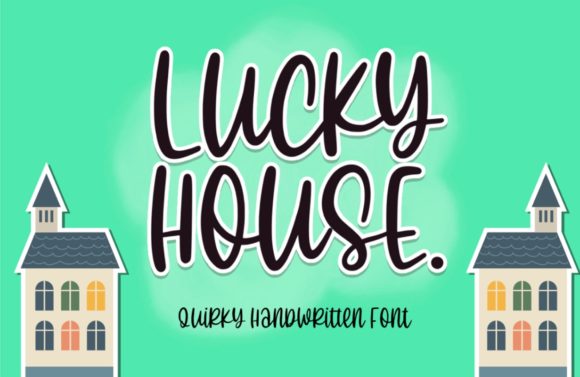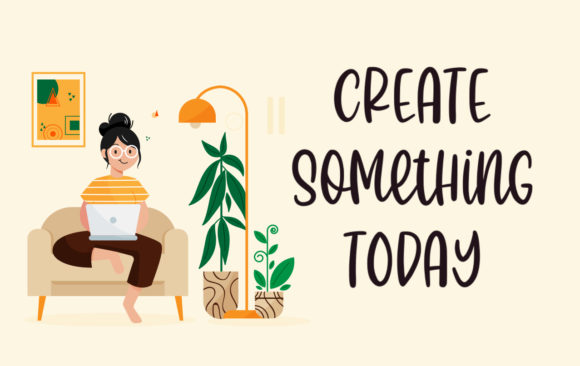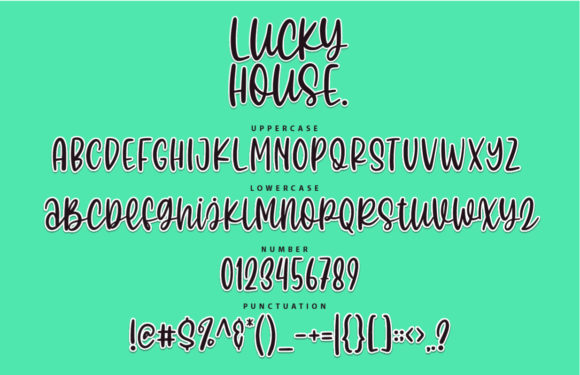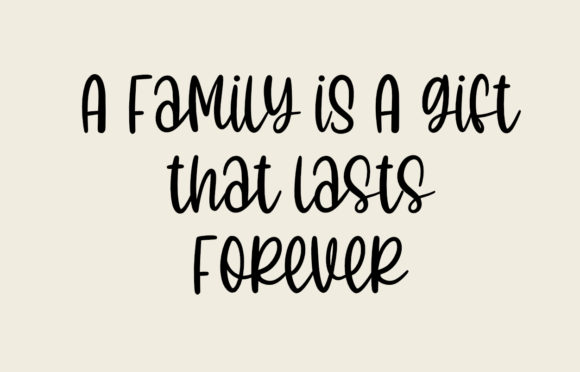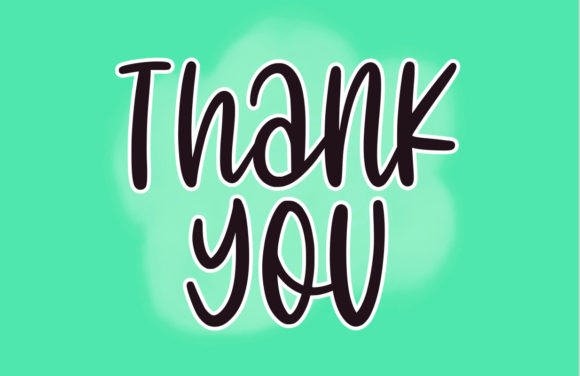
Lucky House Font
About Lucky House Font
Lucky House is a sweet and cute handwritten font. It will elevate a wide range of design projects to the highest level, be it branding, headings, wedding designs, invitations, signatures, logos, labels, and much more!